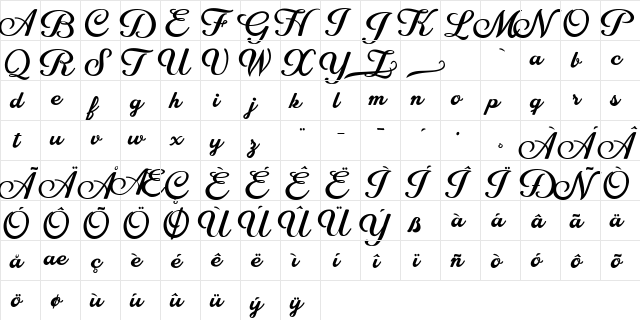
Costa Rica Personal Use Regular
| Foundry | Billy Argel |
| Designer | Billy Argel |
Design Context for Costa Rica Personal Use Typeface
Costa Rica Personal Use is a composed and adaptable typeface that performs quietly and consistently across a wide range of design contexts.